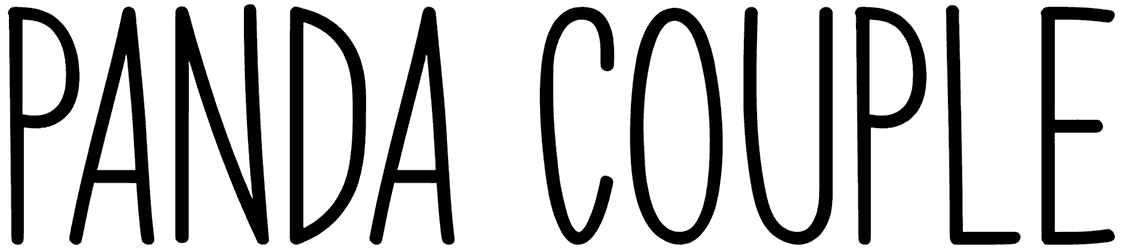
Panda Couple Font
If you’re heartless enough to say no to a font so adorably named, we don’t think we have anything else to tell you. Panda Couple! It’s just such a sweet choice of name that you’re not going to find it in you to easily move on to the next cute bullet journal font waiting for you on RB.
It’s so cuddly and cheerful that you’ll want it everywhere, from apparel and food branding to your romantic project. See? EVERYWHERE! Just like we said.